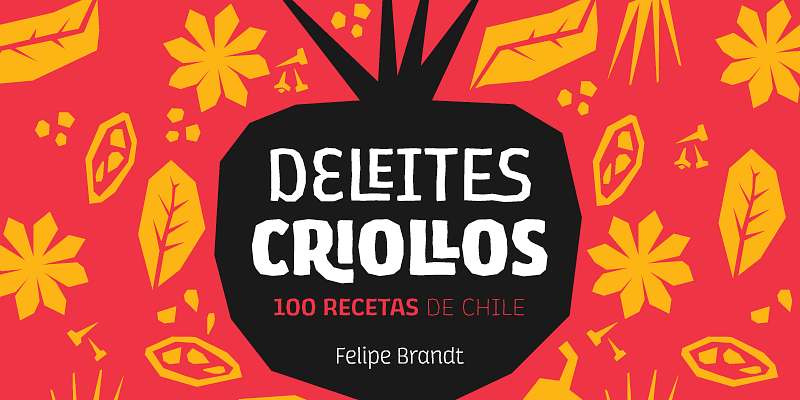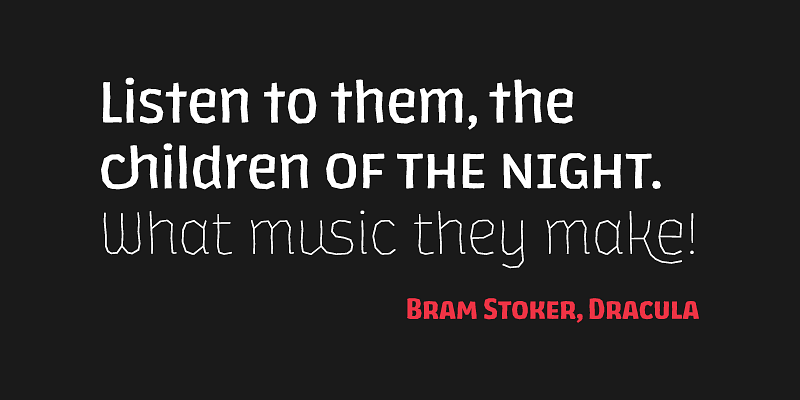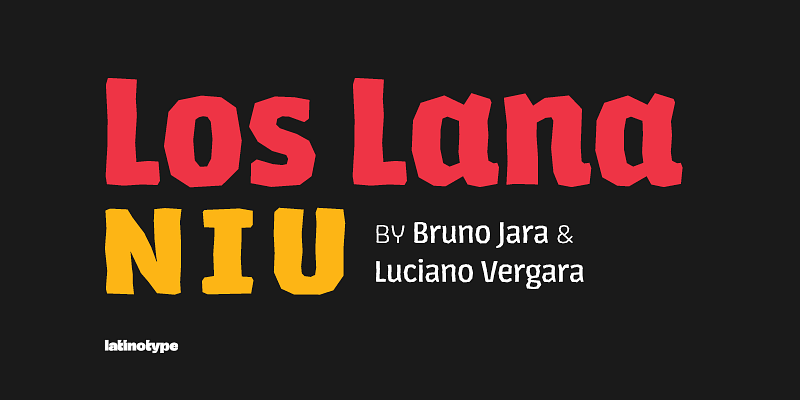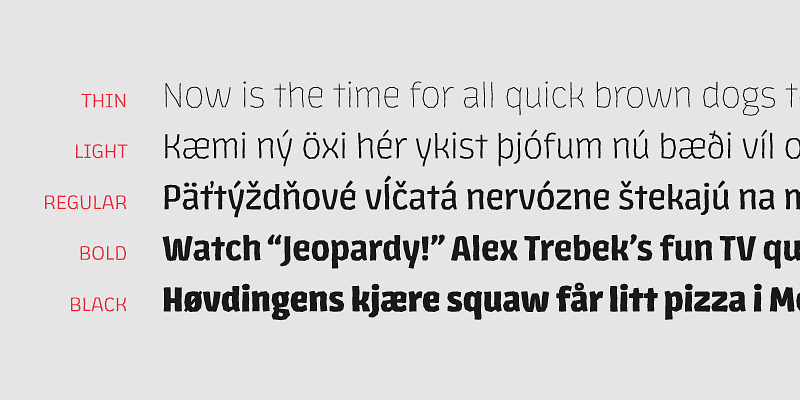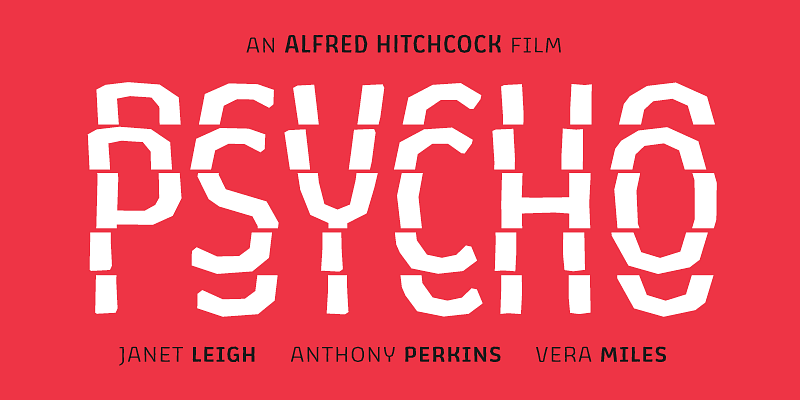
Los Lana Niu Pro is based on Los Lana (2007). This new version preserves the rustic aesthetics of the original typeface, but it lacks curves and it visually looks as if it was an irregular font.